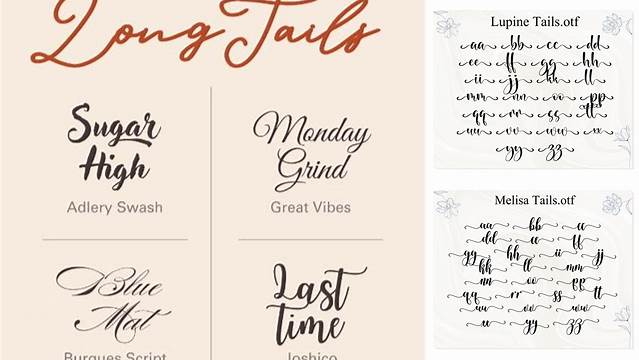
Free Cursive Fonts With Long Tails: Elegant & Flowing
Are you looking for elegant and flowing cursive fonts with long tails? You've come to the right place! In this comprehensive guide, we'll explore the world of cursive fonts with long tails, discuss their characteristics, and showcase some of the best options available, especially those that are free for personal or commercial use. We'll delve into what makes these fonts so captivating and how you can effectively use them in your design projects. These fonts, characterized by their elongated strokes and elegant loops, add a touch of sophistication and charm to any design. Whether you're designing wedding invitations, logos, or website headings, cursive fonts with long tails can elevate your work to the next level.
What are Cursive Fonts with Long Tails?
So, what exactly are cursive fonts with long tails? Guys, think of them as the ballerinas of the font world – graceful, flowing, and with a certain je ne sais quoi. These fonts are designed to mimic the fluidity of handwriting, where letters connect seamlessly, and certain strokes extend beyond the typical letterform. The “long tails” refer to the extended strokes, especially on letters like 'g', 'j', 'y', and sometimes even 'f' and 'l'. These tails add a decorative flourish, making the font feel more elegant and refined. They evoke a sense of luxury, creativity, and personal touch, which makes them ideal for projects that need a touch of class and personality. Imagine a wedding invitation with names beautifully scripted in a font where the tails gracefully swirl around the page. Or a logo for a high-end boutique where the elongated strokes suggest exclusivity and attention to detail. That's the power of cursive fonts with long tails!
The beauty of these fonts lies in their ability to balance readability with visual appeal. While some cursive fonts can be overly ornate and difficult to decipher, the best long-tailed fonts maintain a level of clarity while still showcasing their distinctive flair. This is achieved through careful design, where the tails are long enough to make an impact but not so long that they overwhelm the letterforms or make the text illegible. The spacing between letters is also crucial; too little space, and the tails can clash and create a cluttered look; too much space, and the connection between the letters is lost, breaking the cursive flow. When used correctly, these fonts can create a visual hierarchy, drawing the eye to specific words or phrases. For instance, a long-tailed cursive font might be used for a headline, while a simpler sans-serif font is used for the body text. This contrast adds visual interest and helps guide the reader's eye through the design. In the digital world, cursive fonts with long tails are increasingly popular for website headers, social media graphics, and online advertisements. They can help brands stand out in a crowded online landscape and convey a sense of personality and style. However, it's essential to use these fonts judiciously. Overusing them can dilute their impact and make a website look cluttered or unprofessional. The key is to find the right balance, using them strategically to highlight key messages and create a visually appealing experience.
Key Characteristics of Cursive Fonts with Long Tails
Let's break down the key characteristics of cursive fonts with long tails a bit further. These fonts aren't just about fancy loops; there's a lot more to them than meets the eye. First and foremost, the elongated tails are the defining feature. These tails can vary in length, thickness, and curvature, and they're what give each font its unique personality. Some tails are delicate and subtle, adding just a touch of elegance, while others are dramatic and sweeping, making a bold statement. The connectivity of the letters is another crucial aspect. True cursive fonts are designed to mimic handwriting, where each letter flows seamlessly into the next. This connection is essential for creating a natural and fluid feel. Without it, the font can look disjointed and less authentic.
Another important characteristic is the slant or italicization. Many cursive fonts have a slight slant to the right, which further enhances the sense of movement and flow. This slant also adds a touch of dynamism, making the text feel more alive and engaging. The contrast in stroke weight is also a significant factor. Many cursive fonts have varying stroke thicknesses, with some parts of the letter being thicker than others. This variation adds depth and visual interest, creating a more calligraphic feel. For instance, the downstrokes might be thicker than the upstrokes, mimicking the pressure applied when writing with a pen. The overall style of the font is also important to consider. Some cursive fonts are formal and traditional, while others are more casual and playful. The style should match the overall tone and message of your design. A formal font might be suitable for a wedding invitation or a corporate logo, while a more casual font might be better for a blog header or a social media graphic. Finally, legibility is paramount. While aesthetics are important, the font should still be easy to read. Overly elaborate tails or intricate letterforms can make the text difficult to decipher, especially at smaller sizes. The best cursive fonts with long tails strike a balance between beauty and readability, ensuring that your message is both visually appealing and easily understood. When choosing a cursive font with long tails, it's essential to consider these characteristics and how they work together to create the overall effect. By understanding these nuances, you can select the perfect font for your project and achieve the desired aesthetic.
Where to Find Free Cursive Fonts with Long Tails
Okay, now for the good stuff! Where can you actually find free cursive fonts with long tails? The internet is a treasure trove, but it can also be a bit of a wild west. Not all fonts are created equal, and not all “free” fonts are truly free for commercial use. So, let's navigate this terrain together. One of the best places to start is Google Fonts. Google Fonts offers a vast library of high-quality fonts that are free for both personal and commercial use. They have a great selection of cursive fonts, including many with beautiful long tails. The best part is that these fonts are optimized for the web, so they'll look great on any device.
Another fantastic resource is Font Squirrel. Font Squirrel curates a collection of fonts that are 100% free for commercial use. They're very diligent about licensing, so you can be confident that you're using the fonts legally. They have a wide variety of cursive fonts, from elegant and formal to playful and whimsical. Dafont is another popular website with a massive collection of fonts, many of which are free for personal use. However, it's crucial to check the license for each font before using it commercially, as some fonts may require a license fee. Creative Fabrica is a subscription-based service that offers a wide range of fonts, graphics, and other design resources. They often have freebies available, including cursive fonts with long tails. Keep an eye on their website for these limited-time offers. MyFonts is a well-respected font marketplace with a vast selection of fonts from independent foundries. While most of their fonts are paid, they occasionally offer free fonts as promotions. Behance and Dribbble, platforms for designers to showcase their work, are also excellent places to discover free fonts. Many designers generously share their creations for free, often as a way to gain exposure. You can find some truly unique and beautiful cursive fonts with long tails on these platforms. When searching for free fonts, it's always a good idea to read the license carefully. Make sure you understand what you're allowed to do with the font, especially if you plan to use it for commercial projects. Look for terms like “free for personal use” or “free for commercial use.” If the license is unclear, it's best to err on the side of caution and contact the font designer or foundry for clarification. By exploring these resources and paying attention to licensing, you can find a wealth of stunning cursive fonts with long tails to enhance your design projects without breaking the bank.
How to Use Cursive Fonts with Long Tails Effectively
So, you've found the perfect cursive font with long tails – now what? How do you actually use it effectively in your designs? It's not as simple as just slapping it on everything. These fonts are like a fine wine; they need to be savored and used judiciously to truly shine. One of the most important things to consider is context. Cursive fonts with long tails evoke a sense of elegance, sophistication, and personalization. They're perfect for projects that need a touch of class, such as wedding invitations, logos for luxury brands, or website headers for creative businesses. However, they might not be the best choice for projects that require a more serious or corporate tone, such as legal documents or financial reports.
Readability is another crucial factor. While cursive fonts are beautiful, they can sometimes be challenging to read, especially at smaller sizes. Avoid using cursive fonts for large blocks of text. Instead, use them sparingly for headings, titles, or short phrases. Pair your cursive font with a more legible font for the body text. A classic sans-serif font like Arial or Helvetica can provide a clean and balanced contrast, ensuring that your message is easily understood. Consider the size and spacing of your text. Cursive fonts with long tails often require more space than other fonts due to their elongated strokes. Make sure the letters don't overlap or look crowded. Adjust the kerning (the space between individual letters) and the leading (the space between lines of text) to optimize readability. Use color and contrast to your advantage. A dark cursive font on a light background will generally be easier to read than a light font on a dark background. Experiment with different color combinations to see what works best for your design. Think about the overall design aesthetic. Your font should complement the other elements of your design, such as images, colors, and layout. A cursive font with long tails can be a beautiful focal point, but it shouldn't clash with the rest of the design. Don't overuse cursive fonts. Using too many cursive fonts in a single design can be overwhelming and detract from the overall impact. Stick to one or two cursive fonts at most, and use them strategically to highlight key elements. Finally, experiment and have fun! Design is a creative process, so don't be afraid to try different things and see what works. Play around with different fonts, sizes, colors, and layouts until you achieve the desired effect. By following these tips, you can harness the beauty of cursive fonts with long tails and create stunning designs that capture attention and convey your message effectively.
Examples of Stunning Cursive Fonts with Long Tails
Let's dive into some examples of stunning cursive fonts with long tails to get your creative juices flowing. We'll cover a range of styles, from elegant and formal to playful and modern, showcasing the versatility of these fonts. Each of these fonts brings a unique flavor, demonstrating how diverse and expressive long-tailed cursive fonts can be. First up is Great Vibes. This font is a classic choice for wedding invitations and elegant branding. It features graceful loops and elongated tails that exude sophistication and romance. Its balanced letterforms and flowing connections make it highly legible, even at smaller sizes, while its distinctive flourishes add a touch of timeless elegance. Next, we have Pacifico. If you're looking for a more casual and friendly vibe, Pacifico is an excellent option. This font has a rounded, flowing style with long tails that add a touch of whimsy. It's perfect for blog headers, social media graphics, and other designs that need a playful touch. The slightly slanted letterforms and generous spacing contribute to its readability, making it suitable for both display and body text. Then there's Lobster Two. Don't let the name fool you; Lobster Two is a versatile font that can be used in a variety of contexts. It has a bold, retro-inspired style with long tails that add a touch of vintage charm. This font is perfect for logos, posters, and other designs that need a strong visual impact. Its sturdy construction and bold strokes ensure readability, even at larger sizes, making it a popular choice for headlines and titles.
In conclusion, cursive fonts with long tails are a fantastic way to add a touch of elegance, personality, and flair to your designs. Whether you're working on a wedding invitation, a logo, or a website header, these fonts can help you create a visual masterpiece. We've explored the characteristics of these fonts, where to find them for free, and how to use them effectively. Remember to consider the context, readability, and overall aesthetic of your design when choosing a font. Experiment with different options and have fun with the creative process. With the right cursive font with long tails, you can elevate your designs and capture the attention of your audience. So go ahead, explore the world of cursive fonts, and let your creativity flow! Guys, you've got this! Embrace the elegance, the drama, and the unique charm of these fonts, and watch your designs come to life. Happy designing!